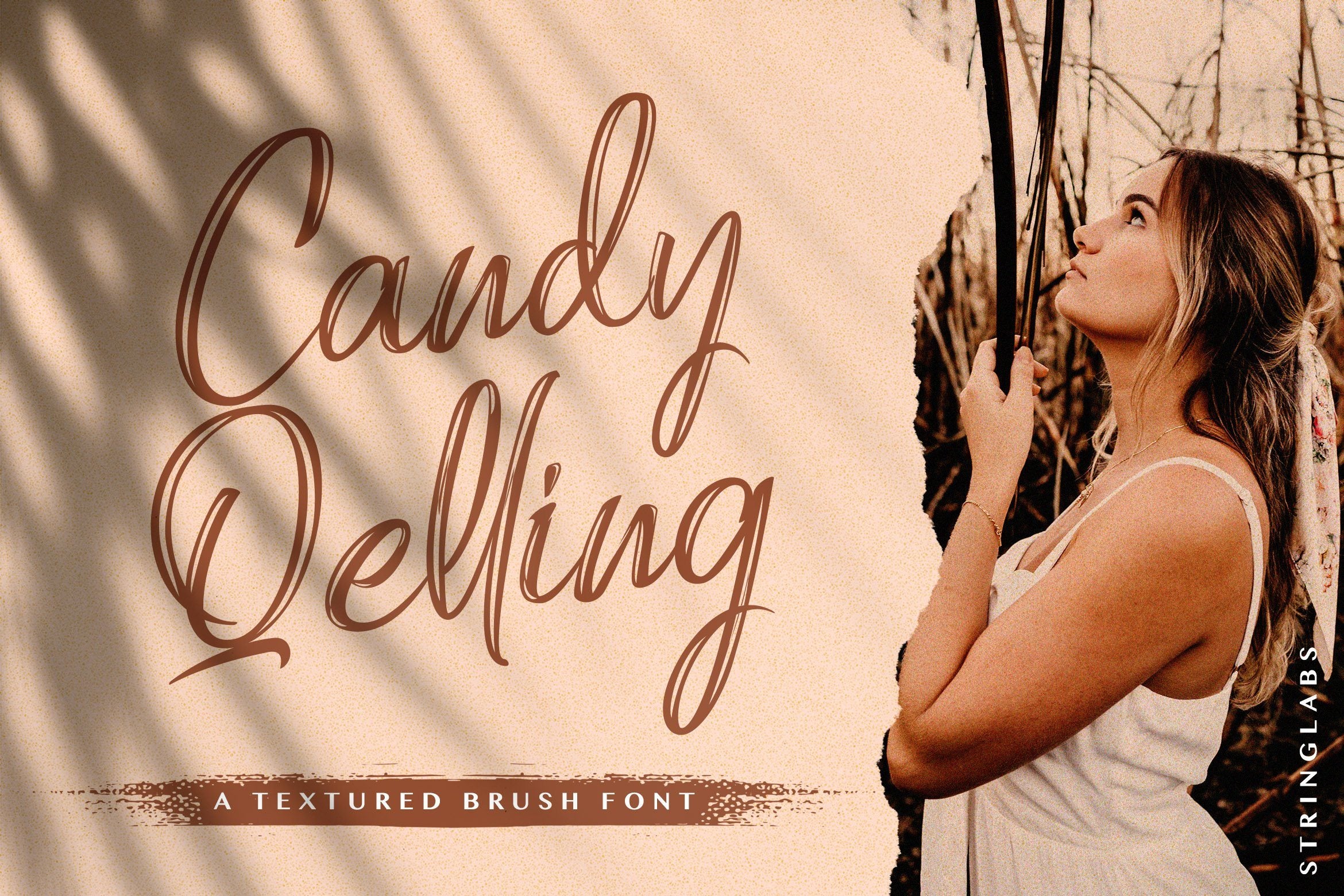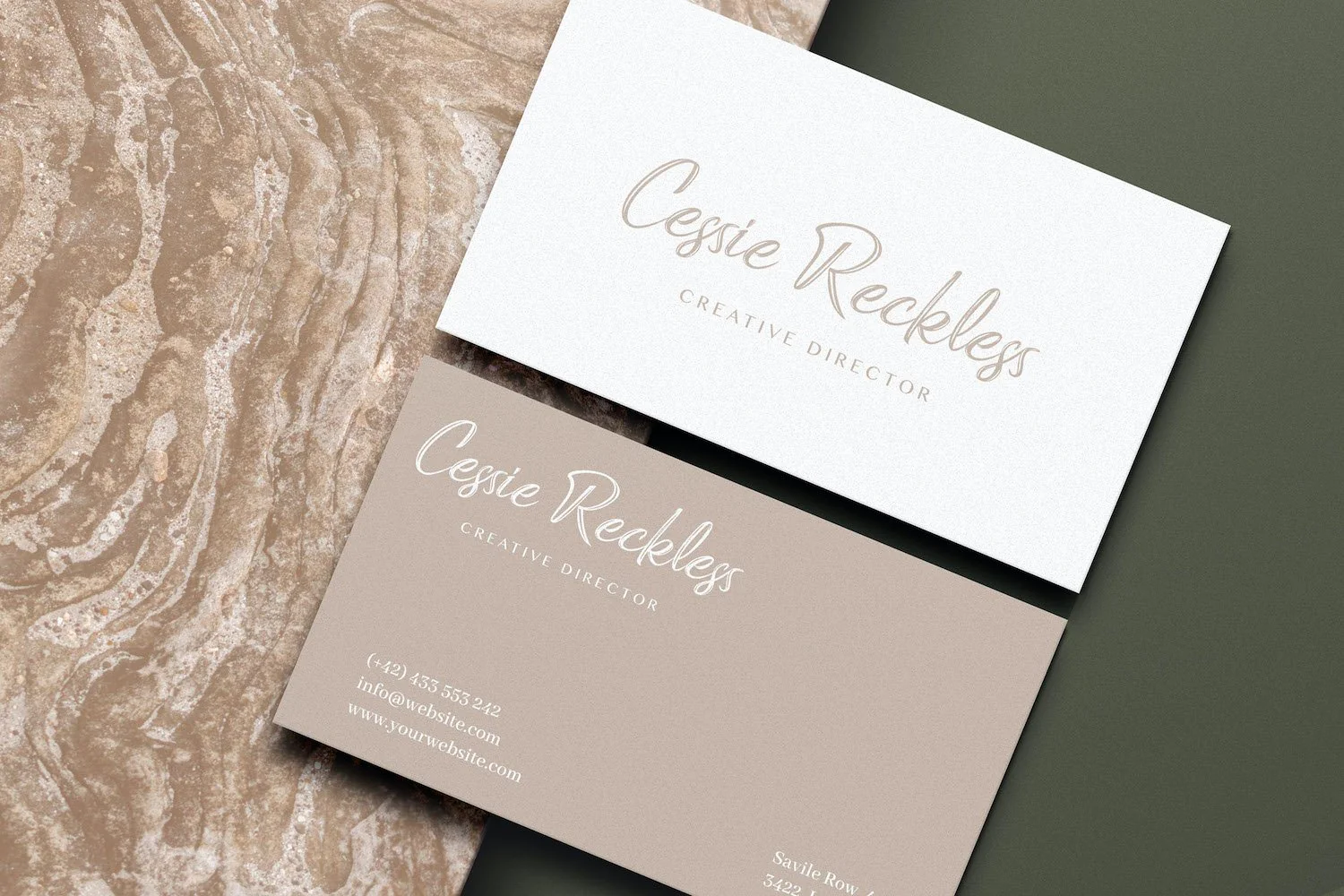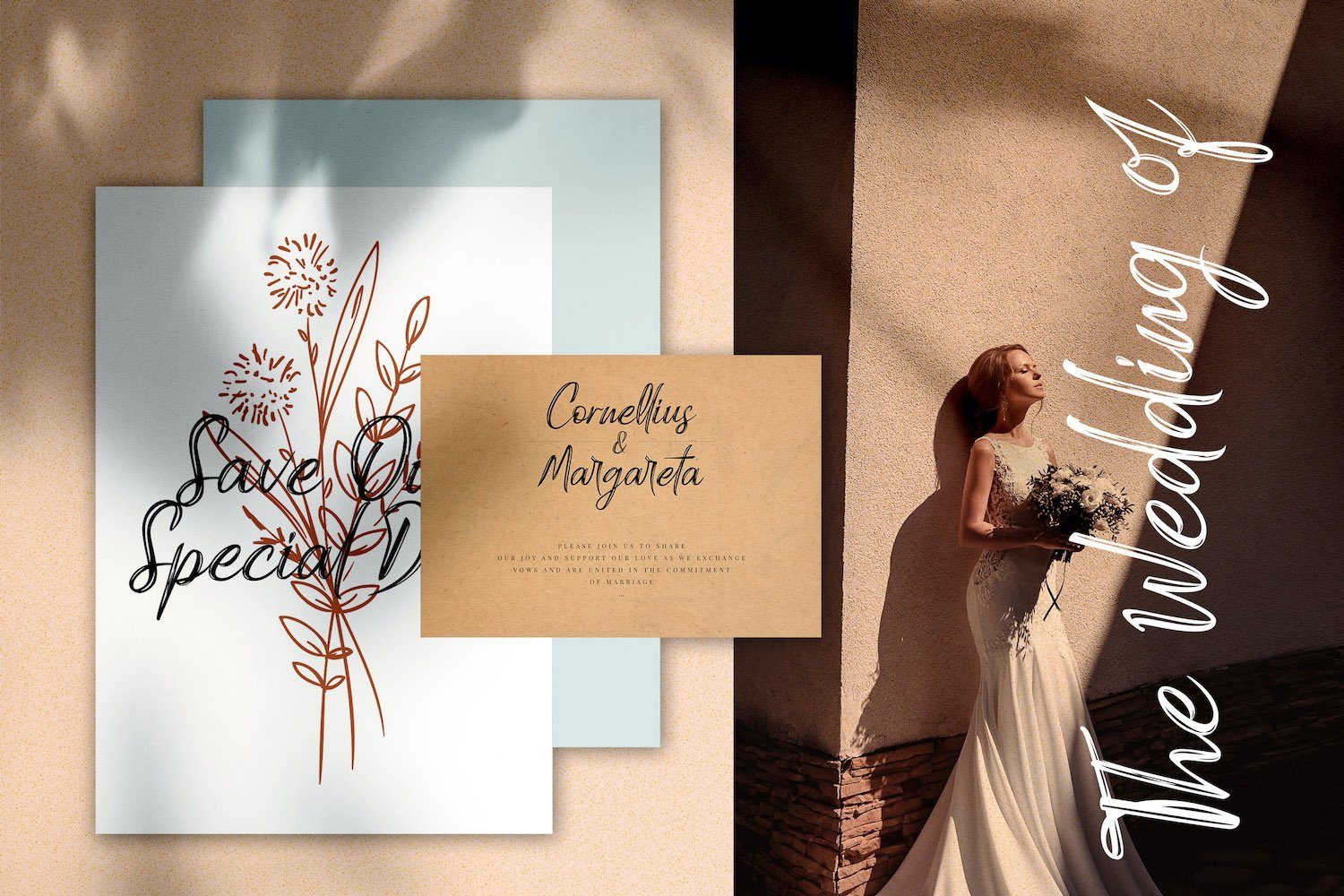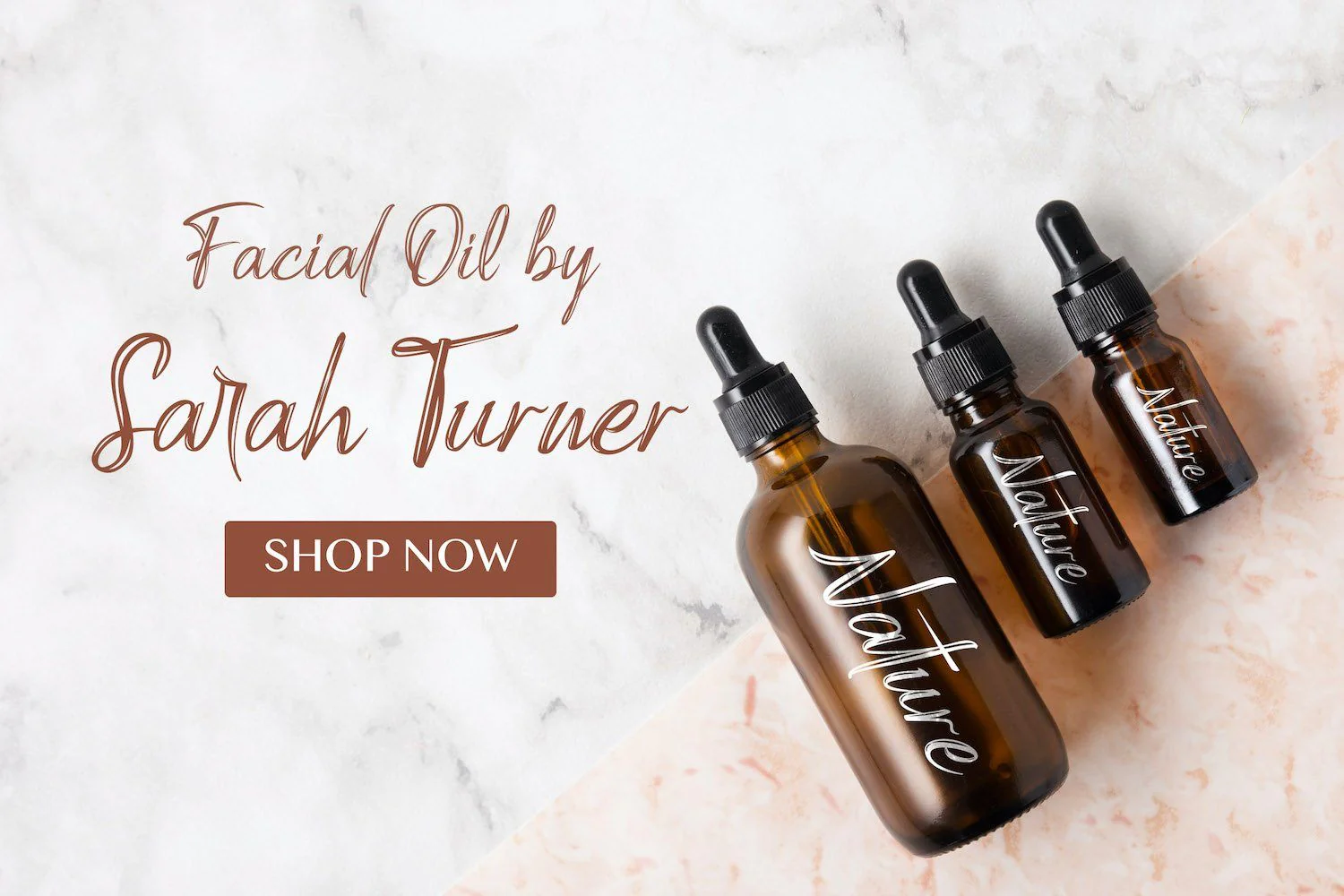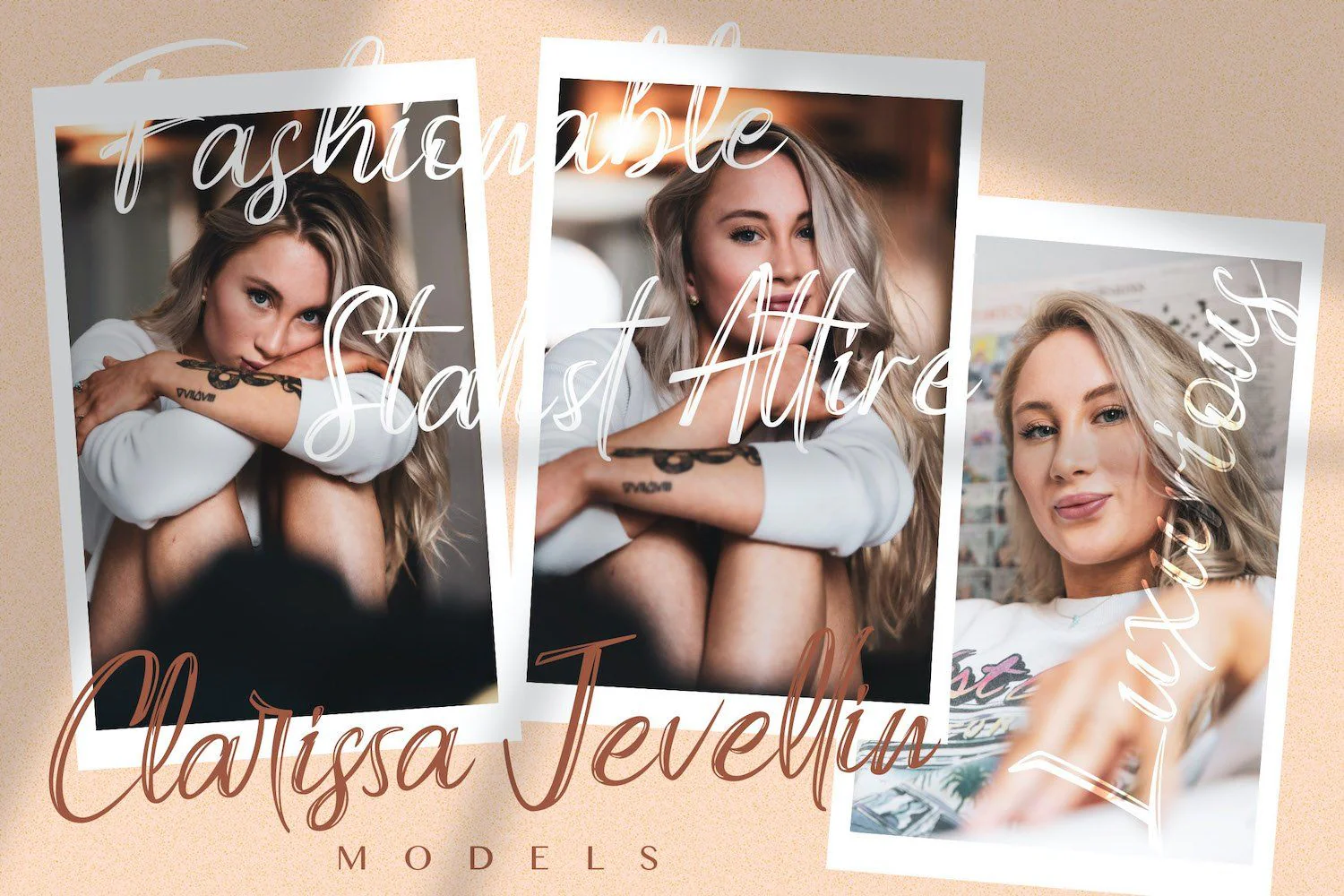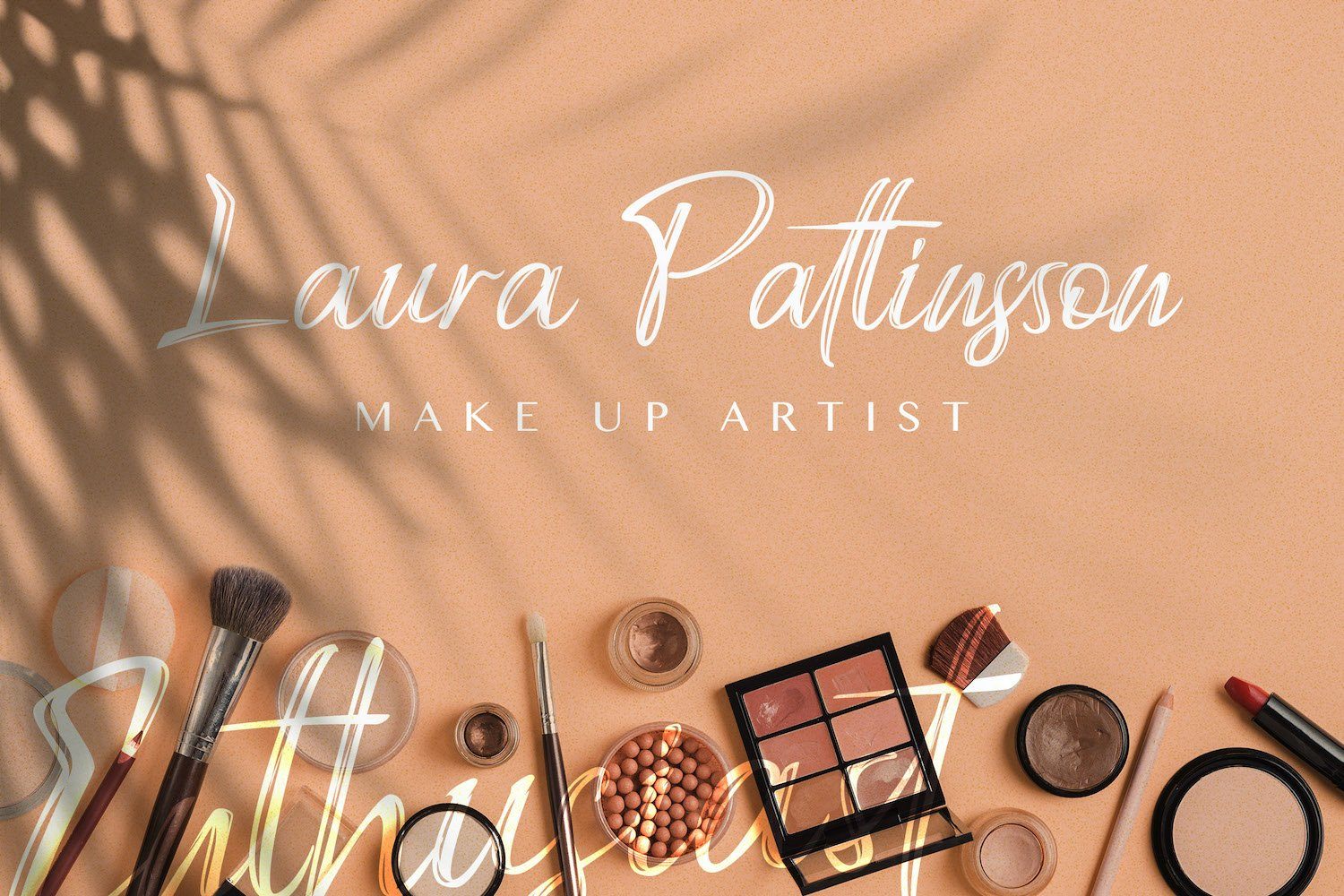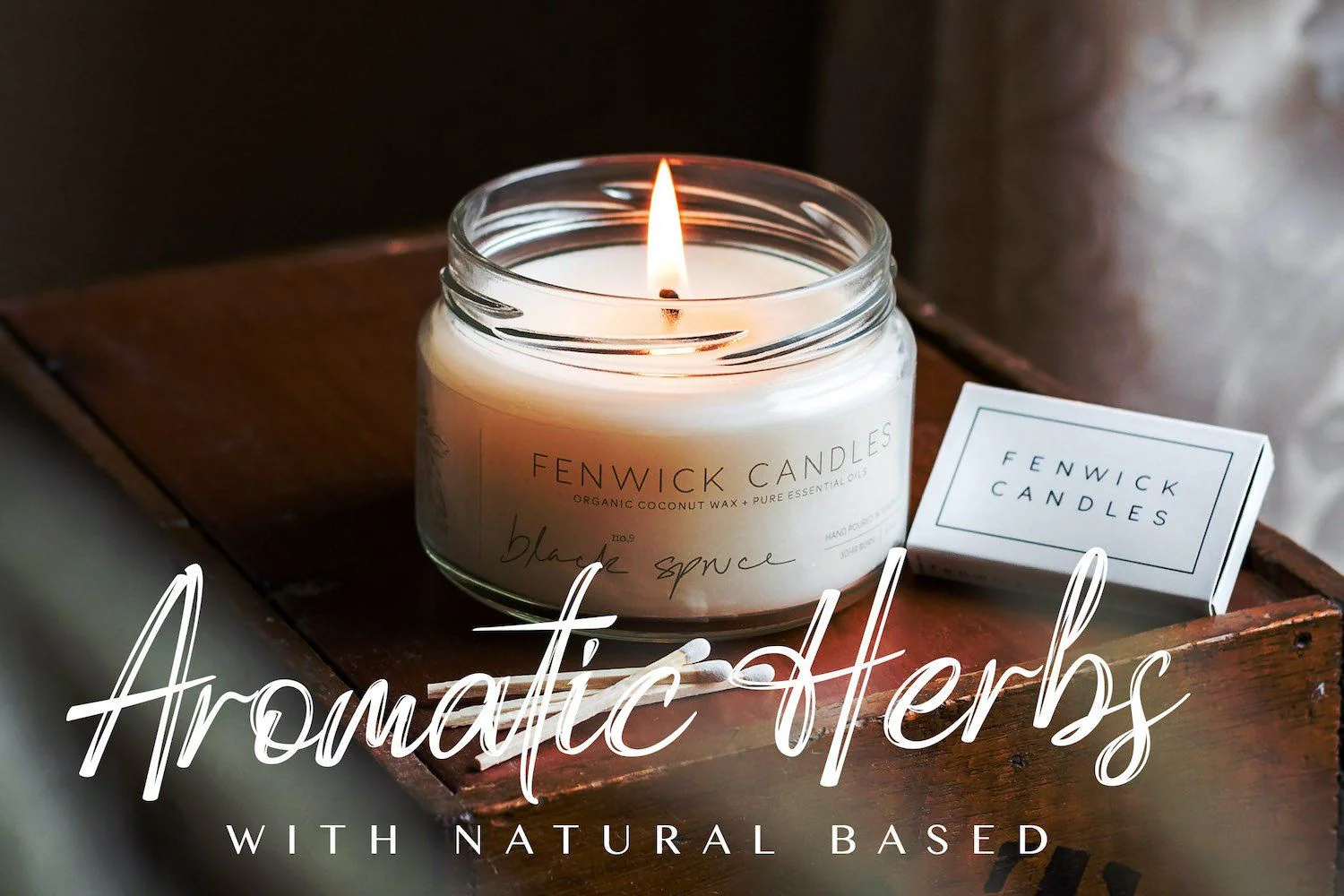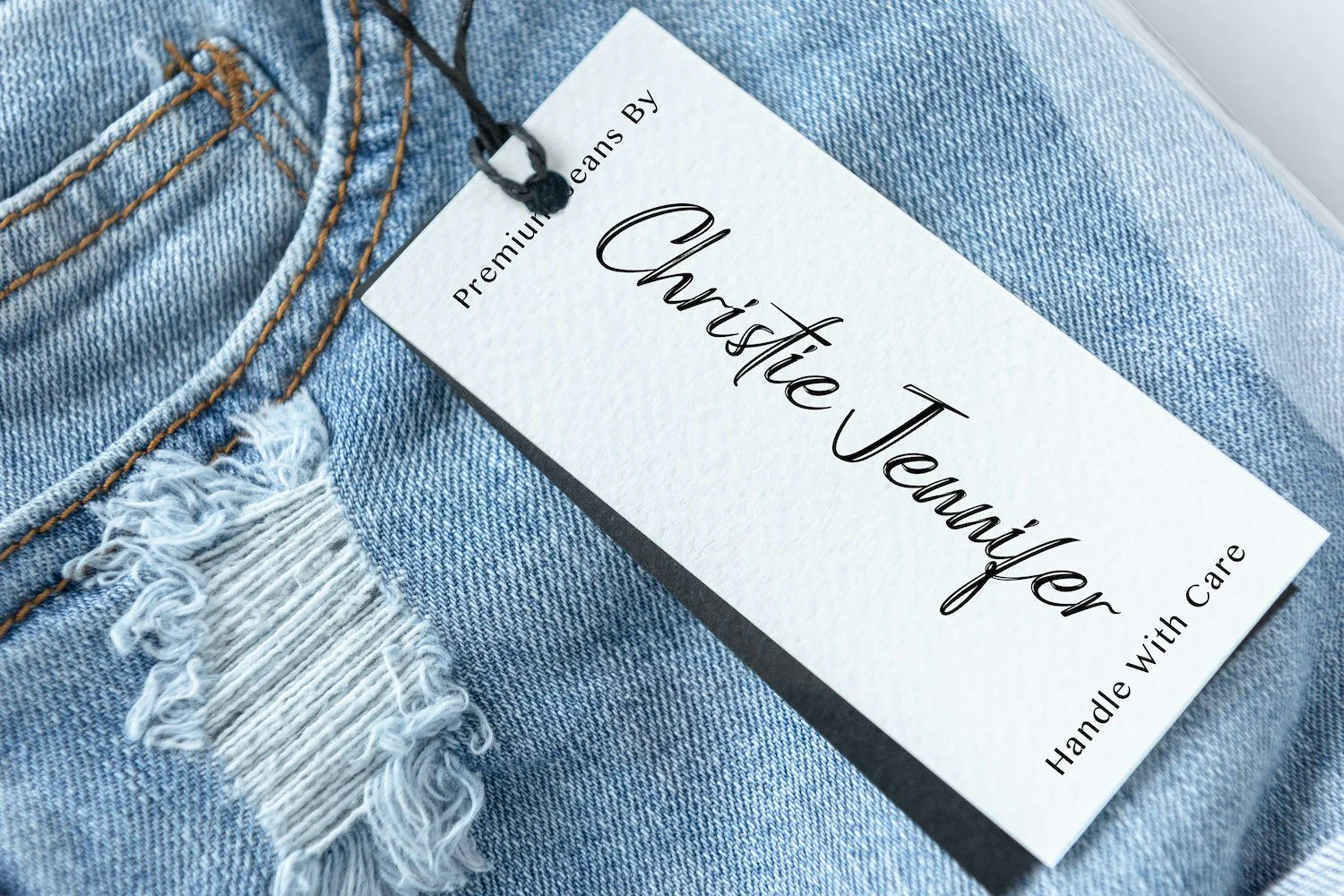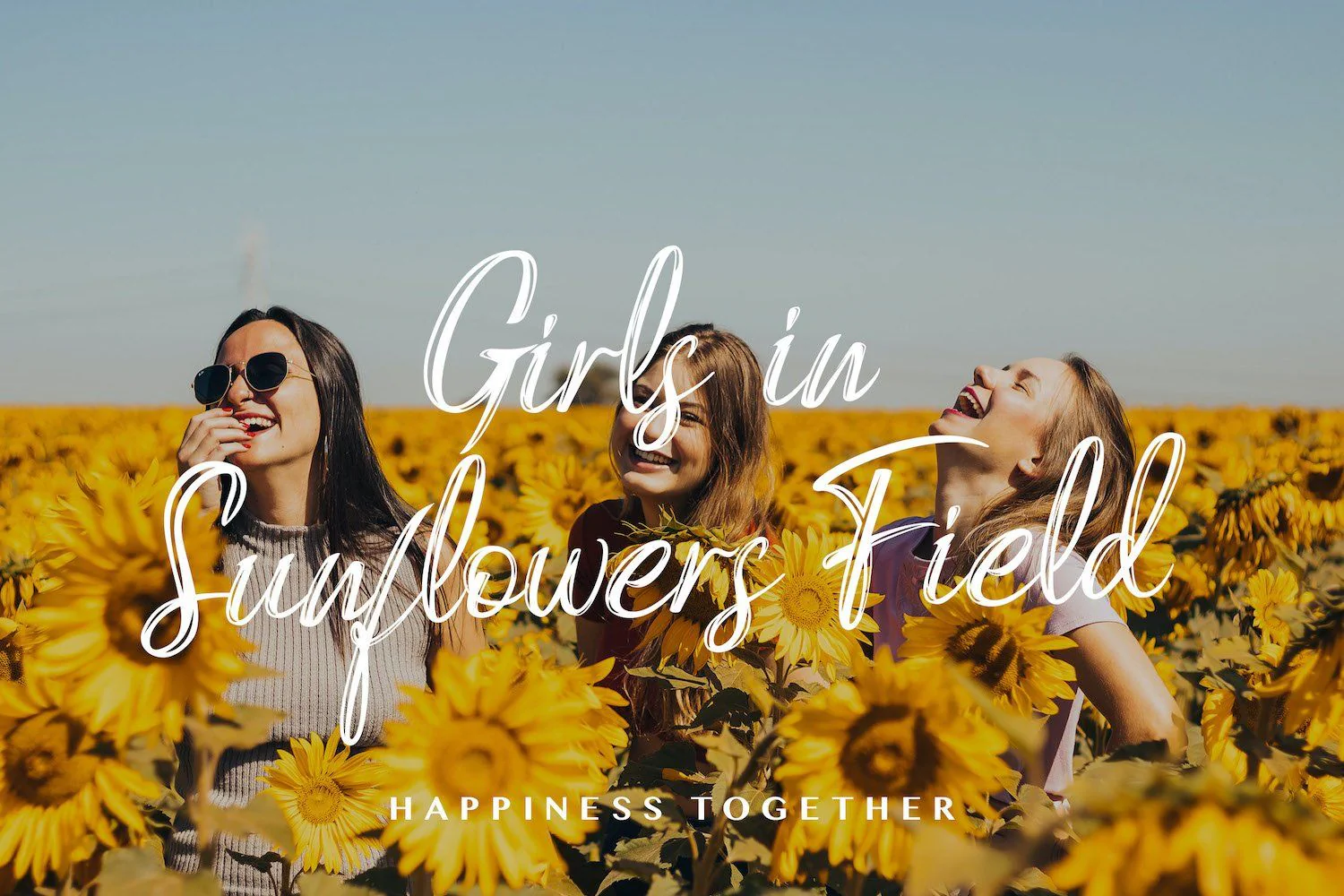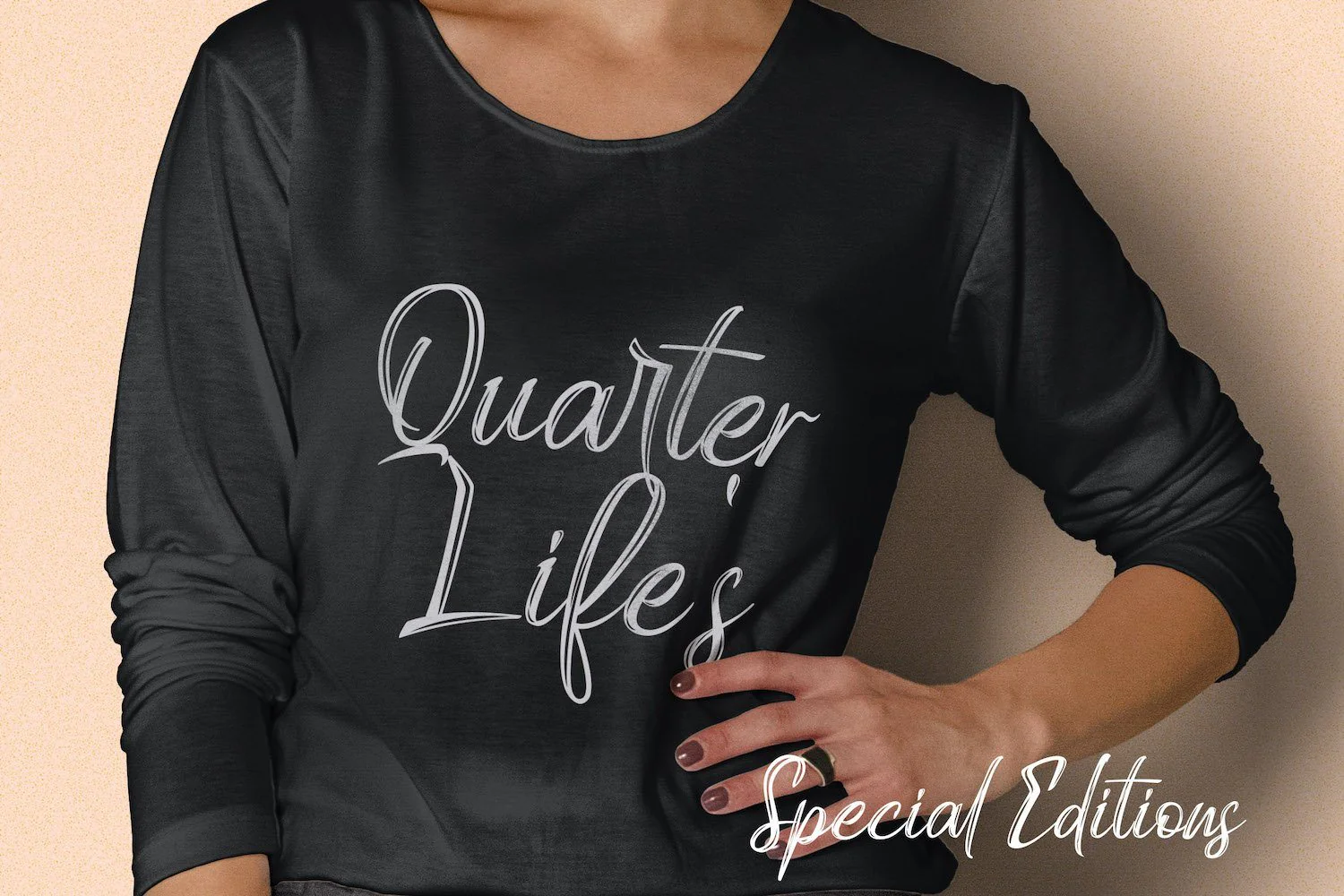
Candy Qelling - Brush Script Font
Introducing Candy Qelling - Brush Script Font
Candy Qelling is a flowing and elegant handwritten font, created with the help of a brush pen. Get inspired by its unique and beautiful style and add it to your favorite designs!
Introducing Candy Qelling - Brush Script Font
Candy Qelling is a flowing and elegant handwritten font, created with the help of a brush pen. Get inspired by its unique and beautiful style and add it to your favorite designs!